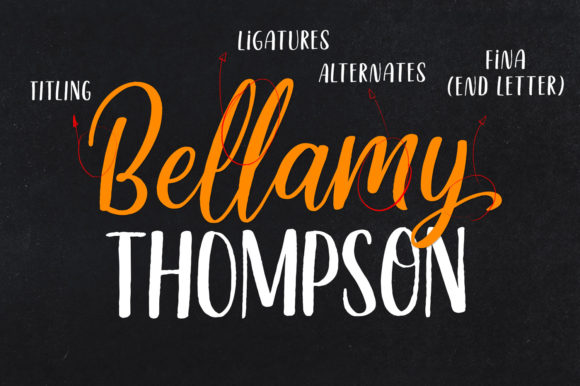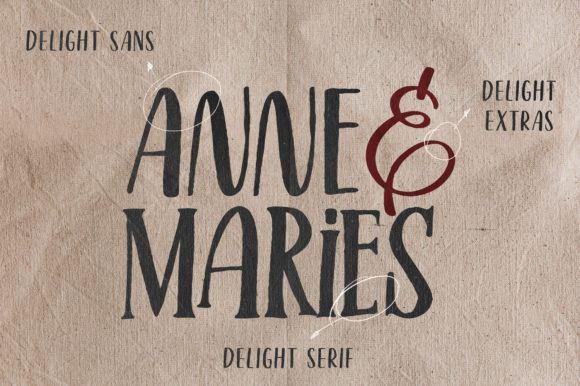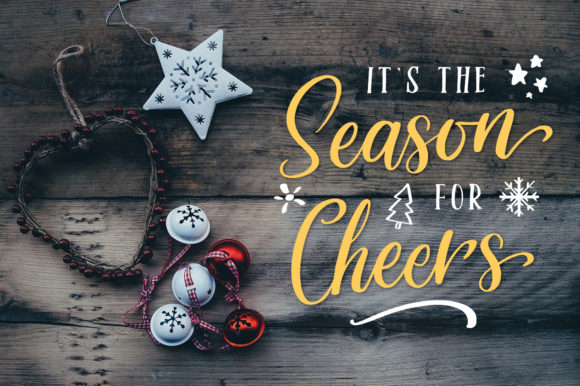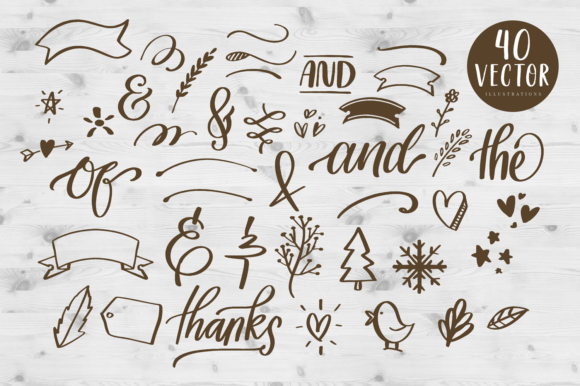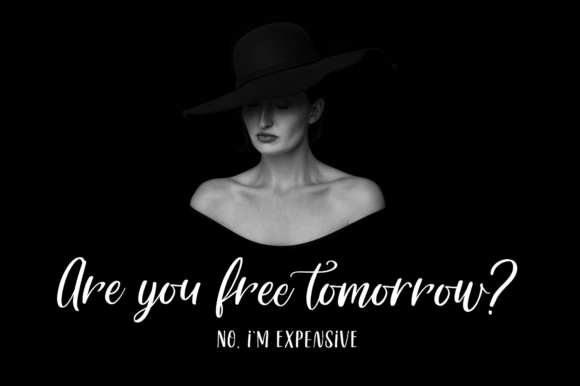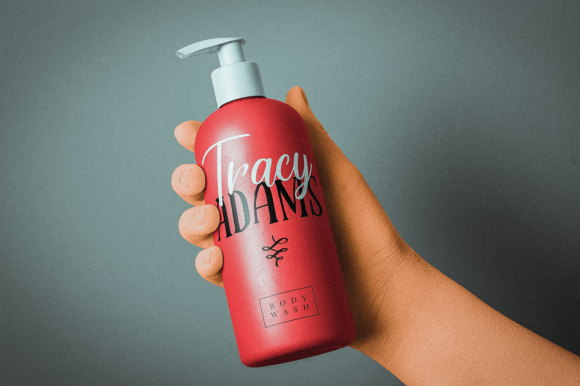
Introducing Delight Lettering Font: Elevate Your Designs with Modern Calligraphy
Are you on the hunt for a font that can add a touch of elegance and sophistication to your designs? Look no further than the Delight Lettering Font, a stunning collection of casual hand lettering brushes with a modern calligraphy style. This versatile font bundle is perfect for designers and crafters looking to create beautiful, eye-catching designs for a variety of projects.
What is Delight Lettering Font?
The Delight Lettering Font is a comprehensive bundle of hand lettering brushes that exude a modern calligraphy style. With its casual and elegant feel, this font is ideal for creating designs that require a personal touch. Whether you’re working on a branding project, designing a logo, or crafting a greeting card, the Delight Lettering Font is sure to impress.
Key Features of Delight Lettering Font
- Casual Hand Lettering Brushes: The Delight Lettering Font features a range of casual hand lettering brushes that are perfect for creating modern and elegant designs.
- Modern Calligraphy Style: With its modern calligraphy style, this font bundle is ideal for designers looking to add a touch of sophistication to their designs.
- Versatile: The Delight Lettering Font is perfect for a variety of projects, including branding, logos, greeting cards, labels, quotes, posters, and more.
Uses for Delight Lettering Font
The Delight Lettering Font is perfect for a wide range of design projects, including:
- Casual Branding: Create beautiful and elegant branding materials, such as business cards, letterheads, and envelopes.
- Logo Design: Design stunning logos that will help your clients stand out from the competition.
- Greeting Cards: Create personalized greeting cards for special occasions, such as birthdays, weddings, and holidays.
- Fancy Labels: Design elegant labels for products, gifts, or any other item that needs a personal touch.
- Quotes and Posters: Create inspiring quotes and posters that will grab the attention of your audience.
- Cosmetic and Printed Stuff: Use the Delight Lettering Font to create beautiful packaging for cosmetics, food, or any other printed materials.
Benefits of Using Delight Lettering Font
By using the Delight Lettering Font, designers and crafters can enjoy a range of benefits, including:
- Unique and Elegant Designs: Create designs that stand out from the competition with the Delight Lettering Font’s unique and elegant style.
- Versatility: Use the Delight Lettering Font for a wide range of design projects, from branding and logos to greeting cards and posters.
- High-Quality: The Delight Lettering Font is of high quality, ensuring that your designs look professional and polished.
Please, welcome! Delight Lettering Bundle. A bunch of casual hand lettering brush with modern calligraphy style. Perfectly fit for casual branding, logo, greeting cards, fancy label, quotes, poster, cosmetic, printed stuff, prepare to explore!